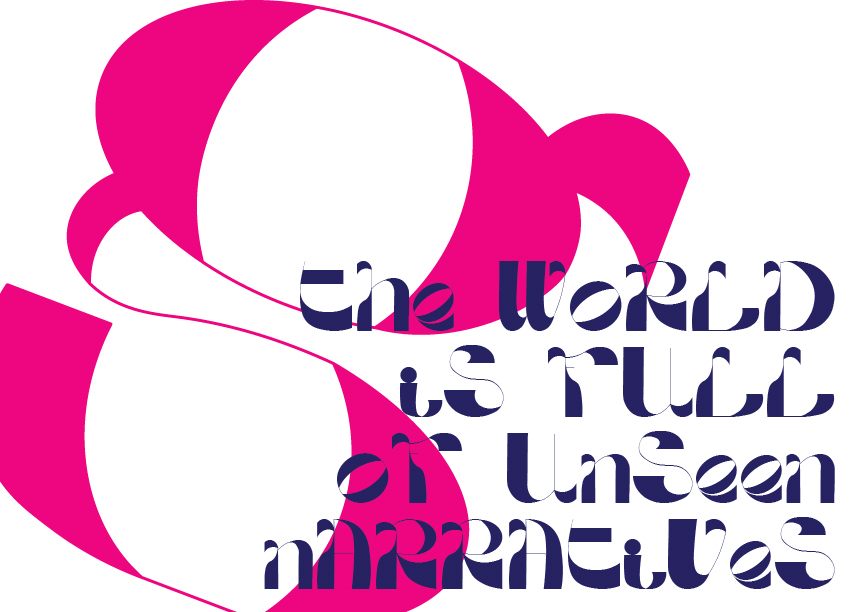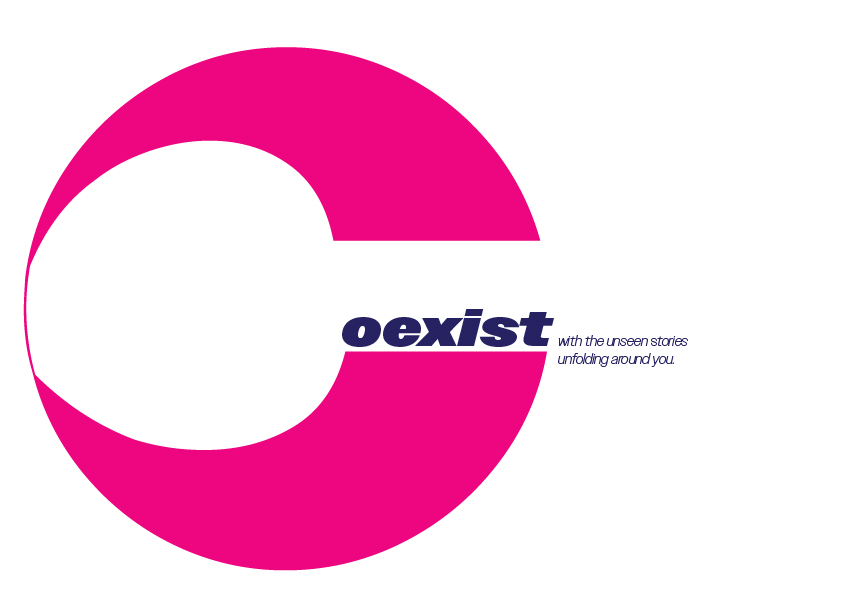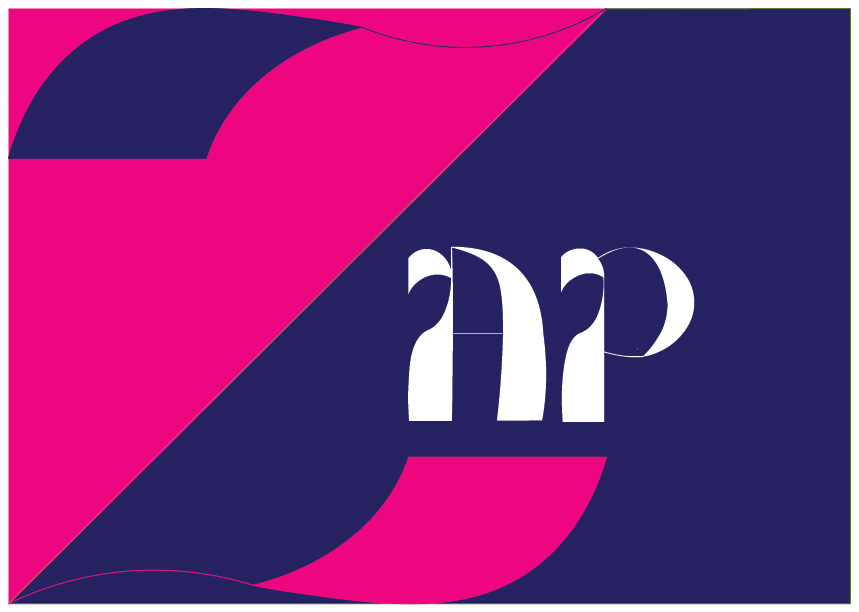
Sonder Station is a decorative font inspired by Peckham Rye station and a feeling I experienced during primary research. I sat just outside the station, sketching and recording sound. While the recordings did not reveal much about the station itself, they led me to a moment of sonder. I began to shift my focus away from myself and towards the people moving through the space around me. Each passer-by had their own life, relationships, experiences, and emotions, separate from mine. The station became a place where many individual lives briefly overlapped. Rather than referencing the station's physical characteristics, this font is primarily shaped by that moment of awareness.